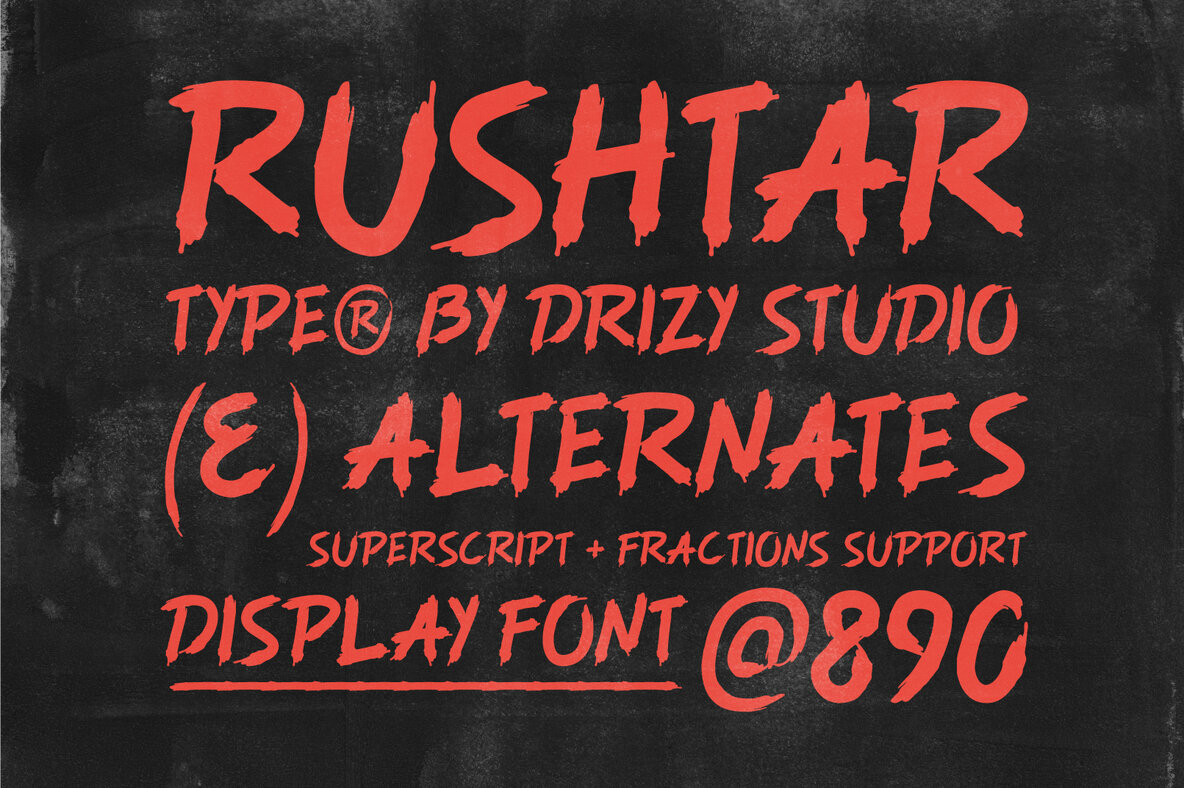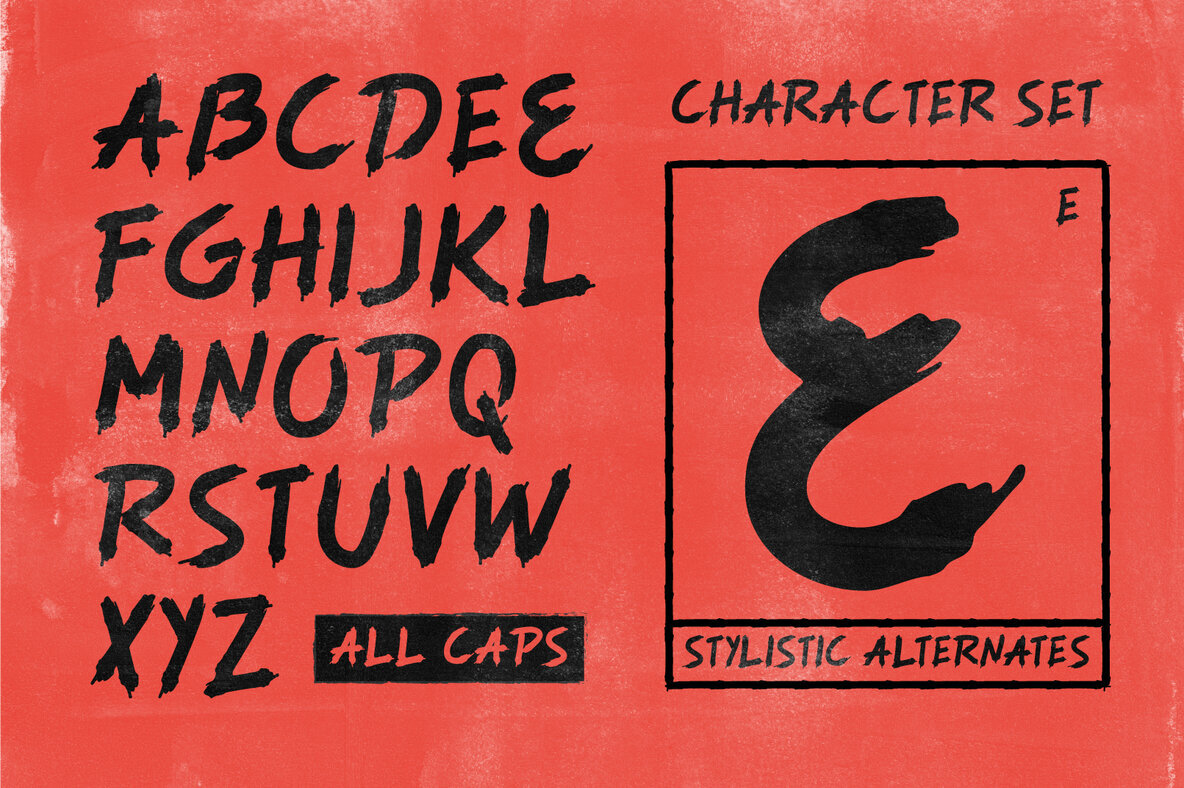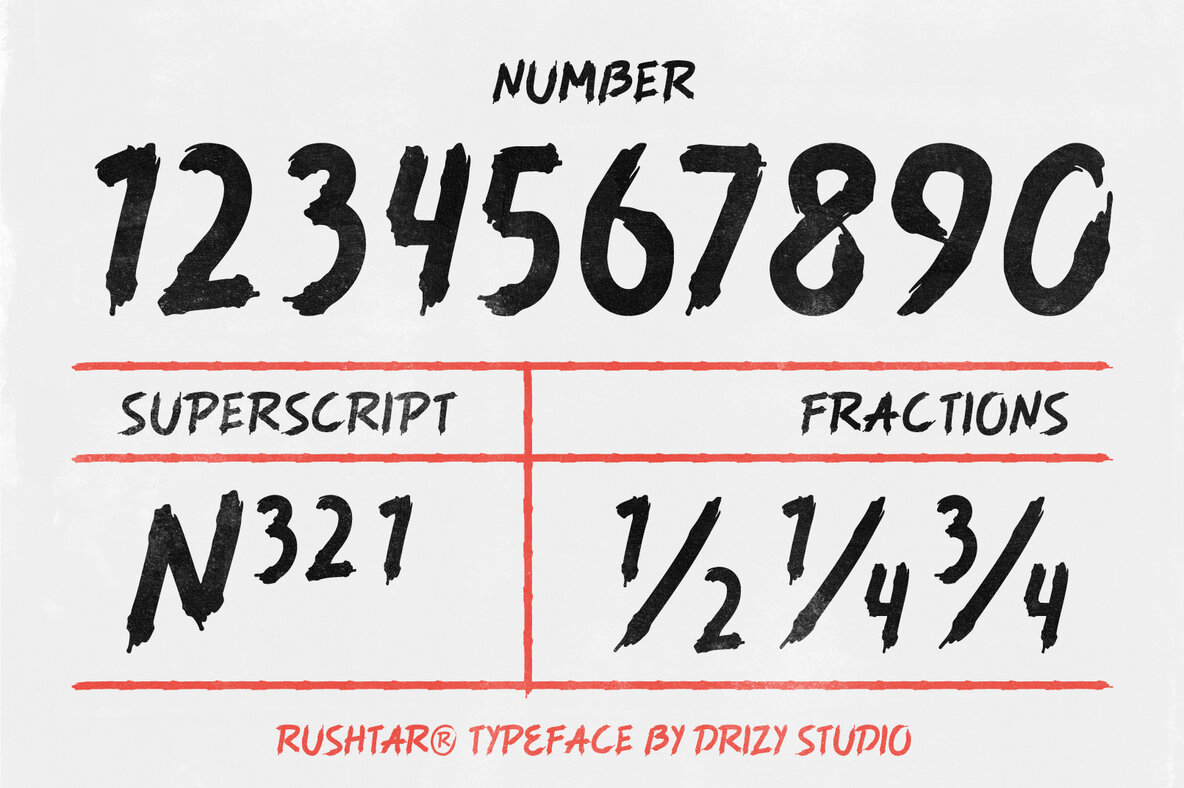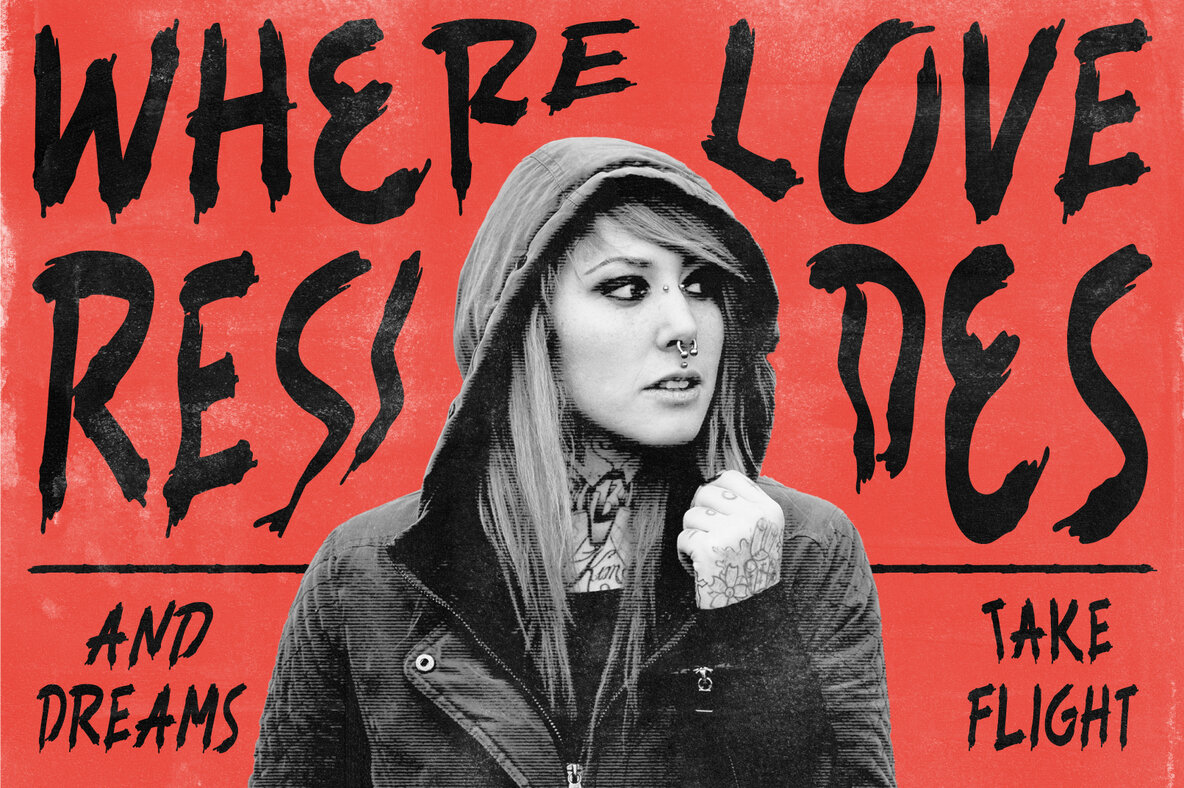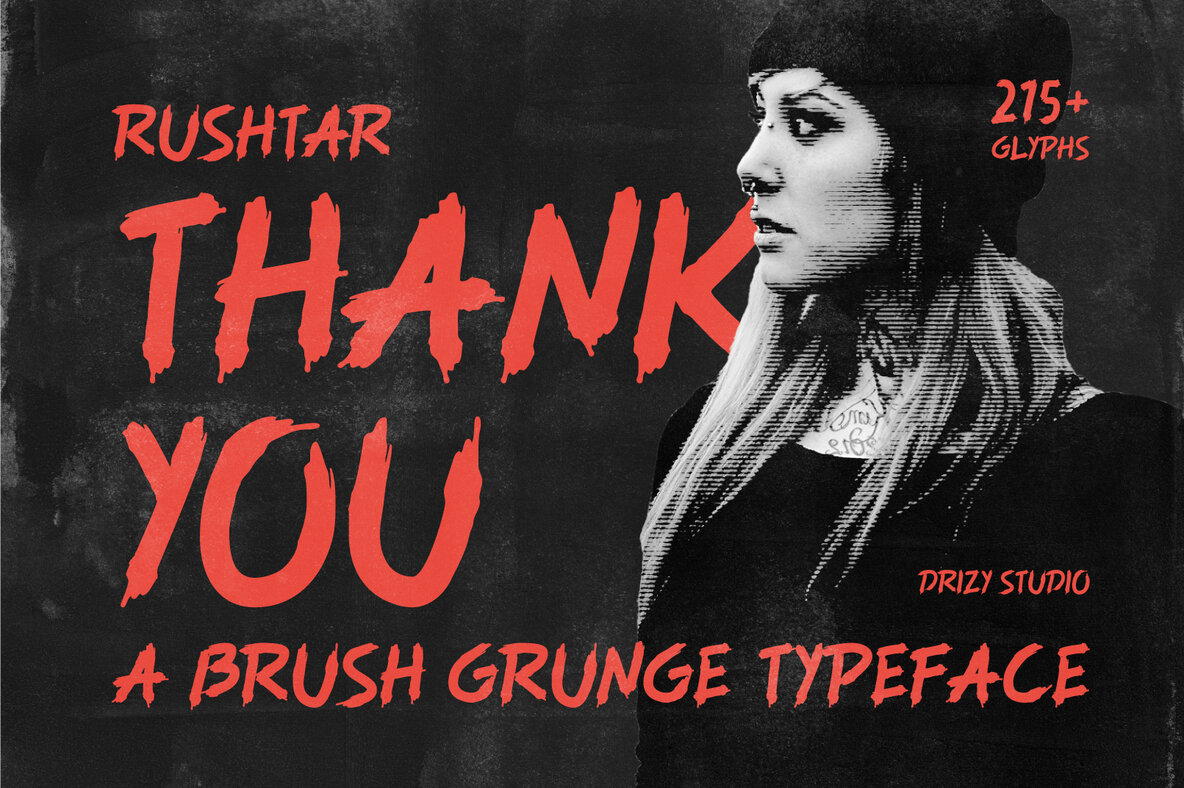
Rushtar Font
Rushtar Regular
"Rushtar" is a distinctive brush grunge typeface that combines the raw energy of brush strokes with the detailed intricacy of pointillism art. Designed with bold and imaginative creators in mind, this font strikes a perfect balance between chaos and precision. Whether you're working on posters, album covers, or any project that calls for a rebellious yet sophisticated touch, "Rushtar" delivers a unique aesthetic that stands out.
This typeface includes a full character set, punctuation, numbers, and multilingual support, making it versatile for various design needs. Its blend of brush grunge and pointillism offers a visually compelling option that can add depth and texture to your work. Dive into a world of design possibilities with "Rushtar" and let your creativity run wild.